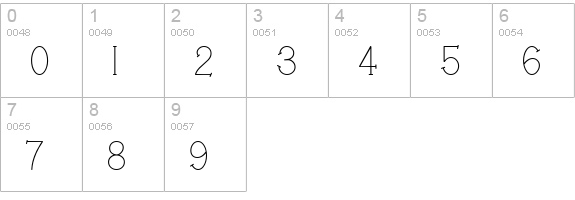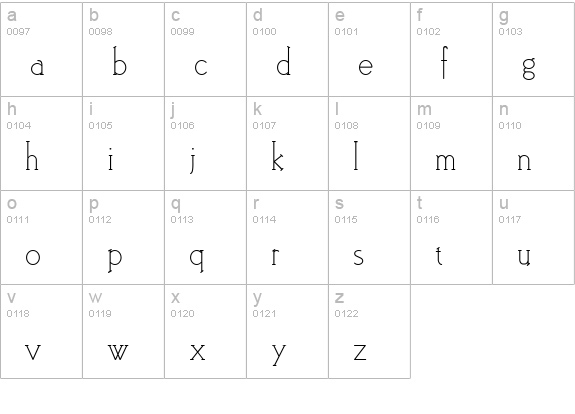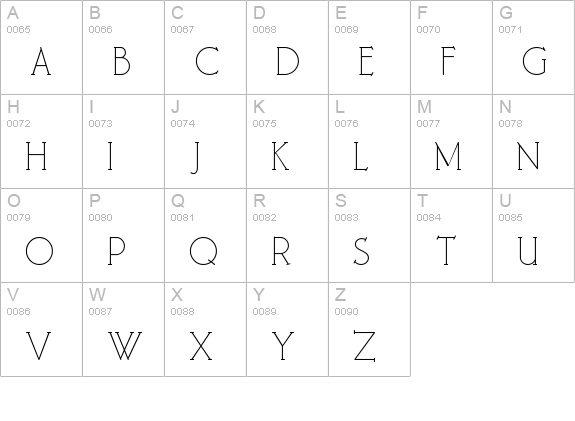
CK Cosmopolitan Font Details
CK Cosmopolitan font is a sleek and sophisticated typeface that exudes elegance and modernity. With its clean lines and stylish curves, this font is perfect for adding a touch of class to any design project. Whether you are creating invitations, branding materials, or social media graphics, CK Cosmopolitan will elevate your work to the next level. What sets CK Cosmopolitan apart is not only its stunning aesthetics but also the fact that it is available for free download at FontsMarket.com. This means you can access this high-quality font without any cost, making it a valuable addition to your font library. Don't miss out on the opportunity to enhance your designs with the timeless beauty of CK Cosmopolitan font. Download it today and see the difference it can make in your projects.